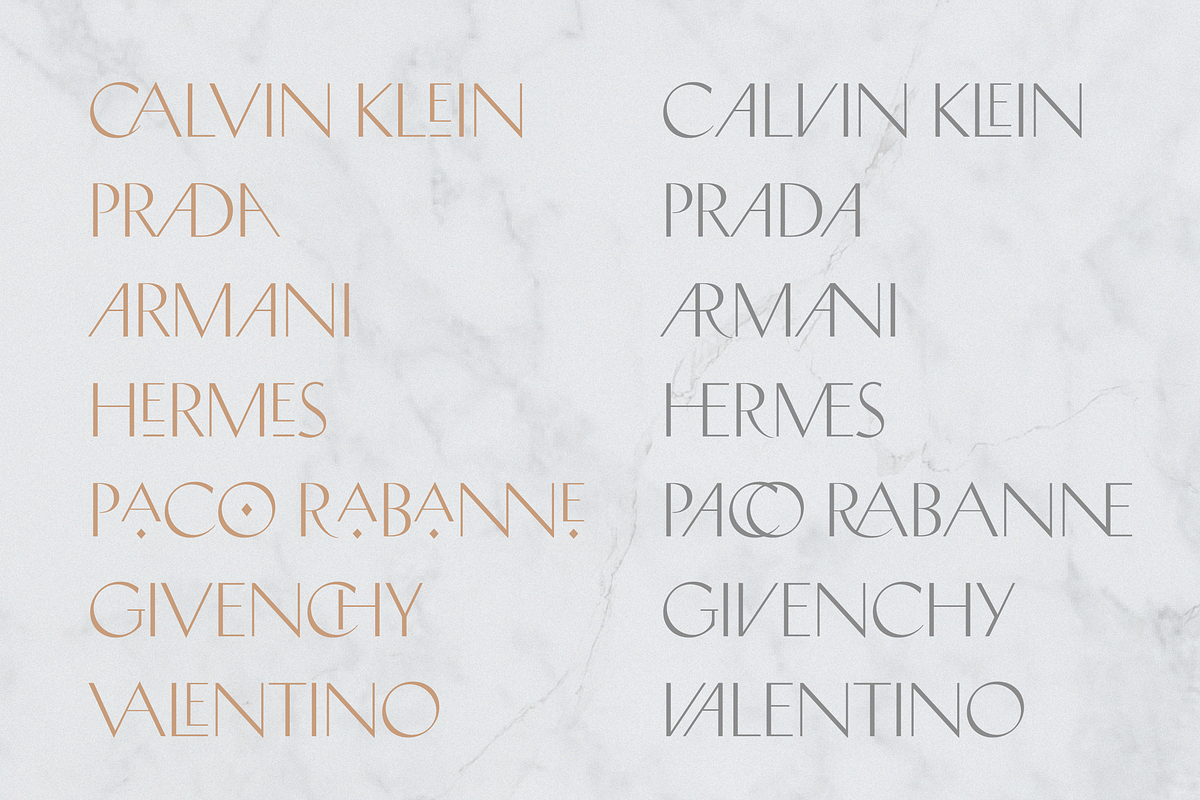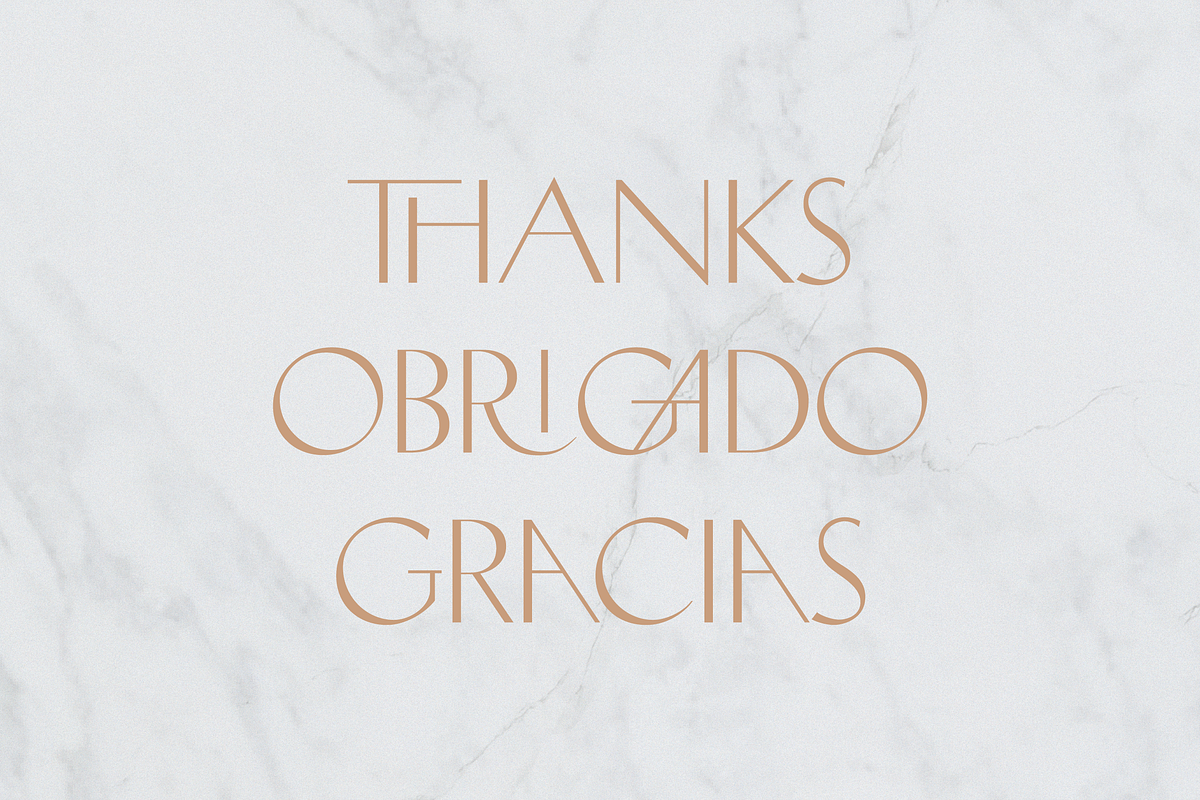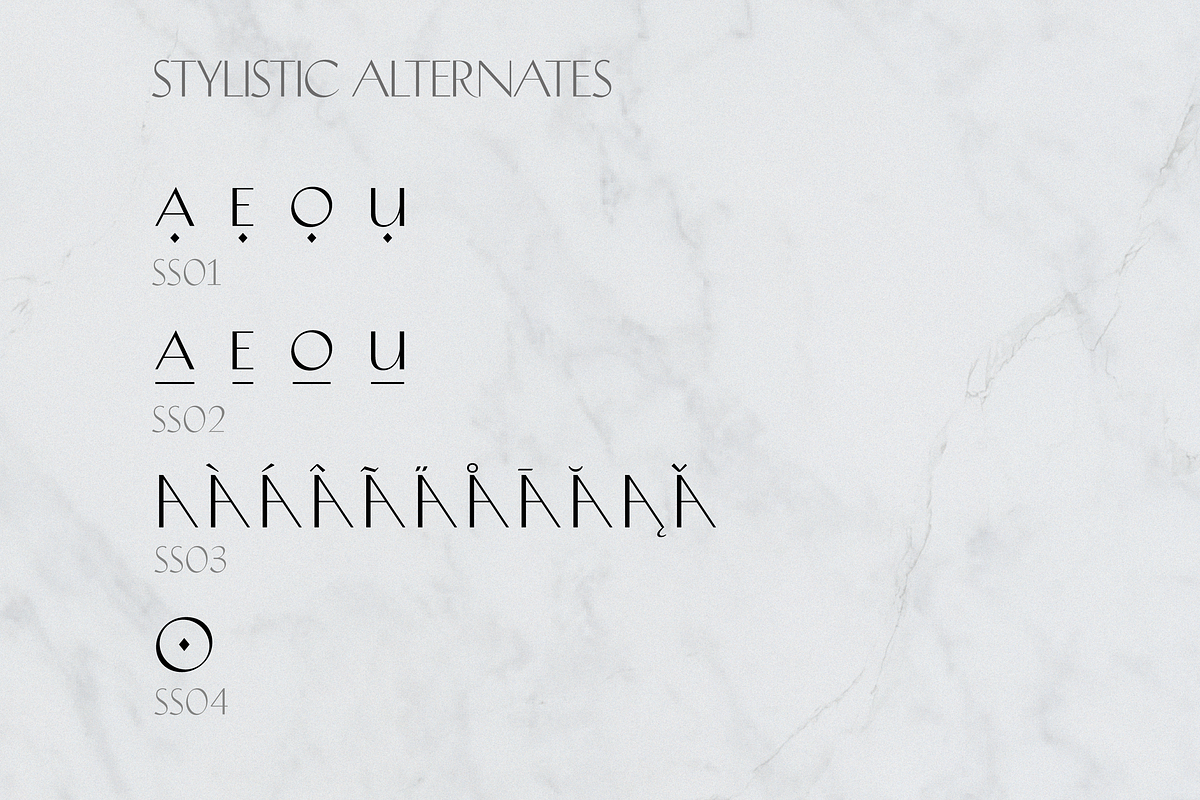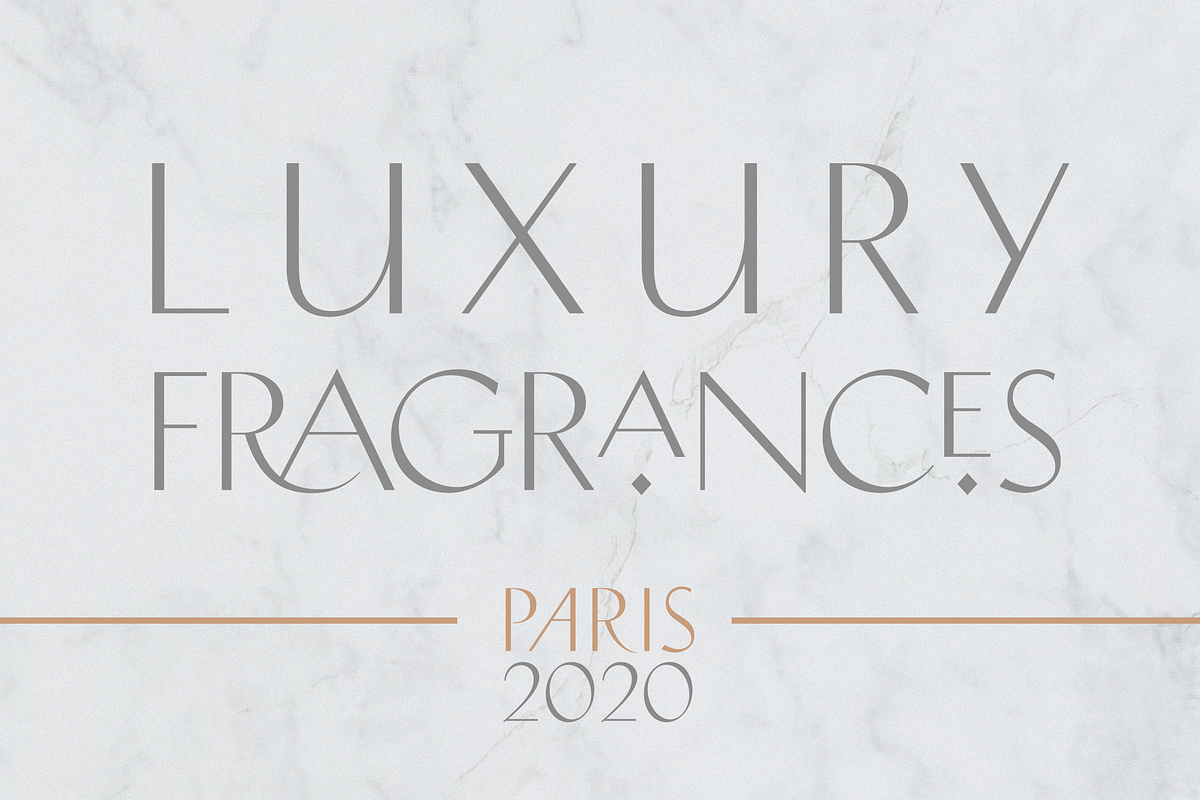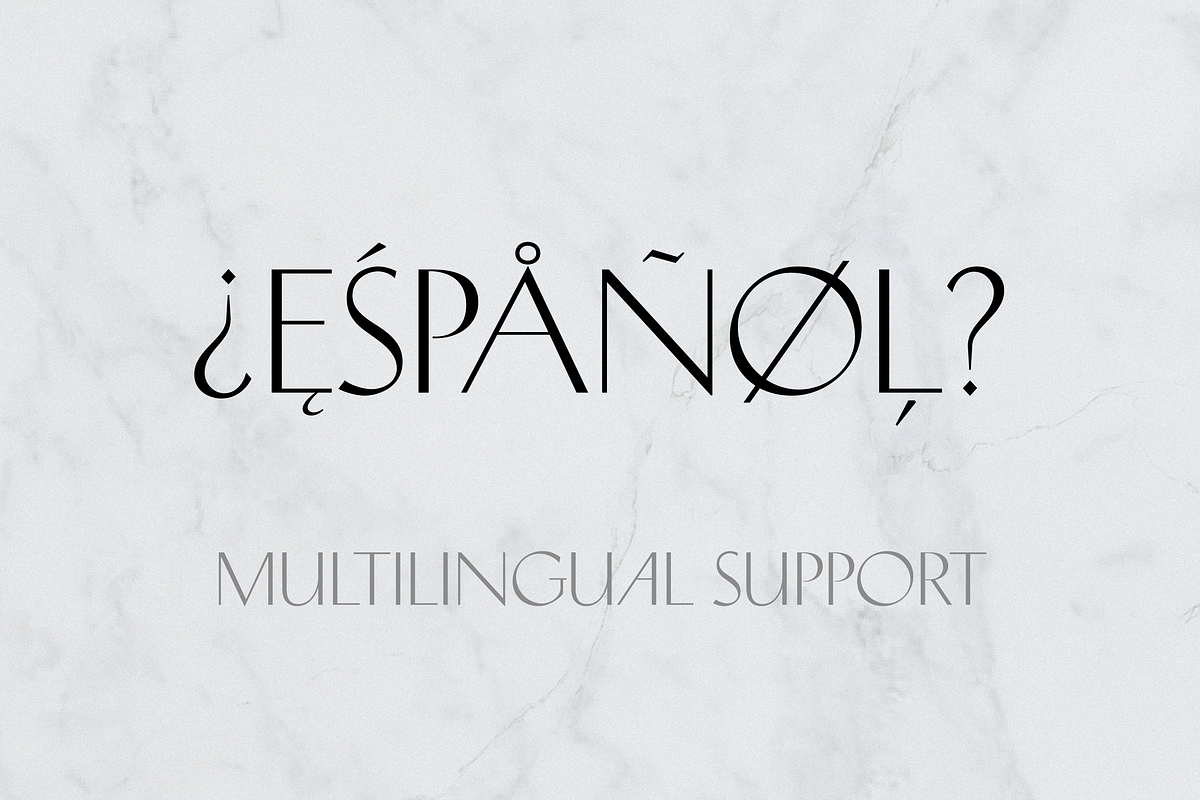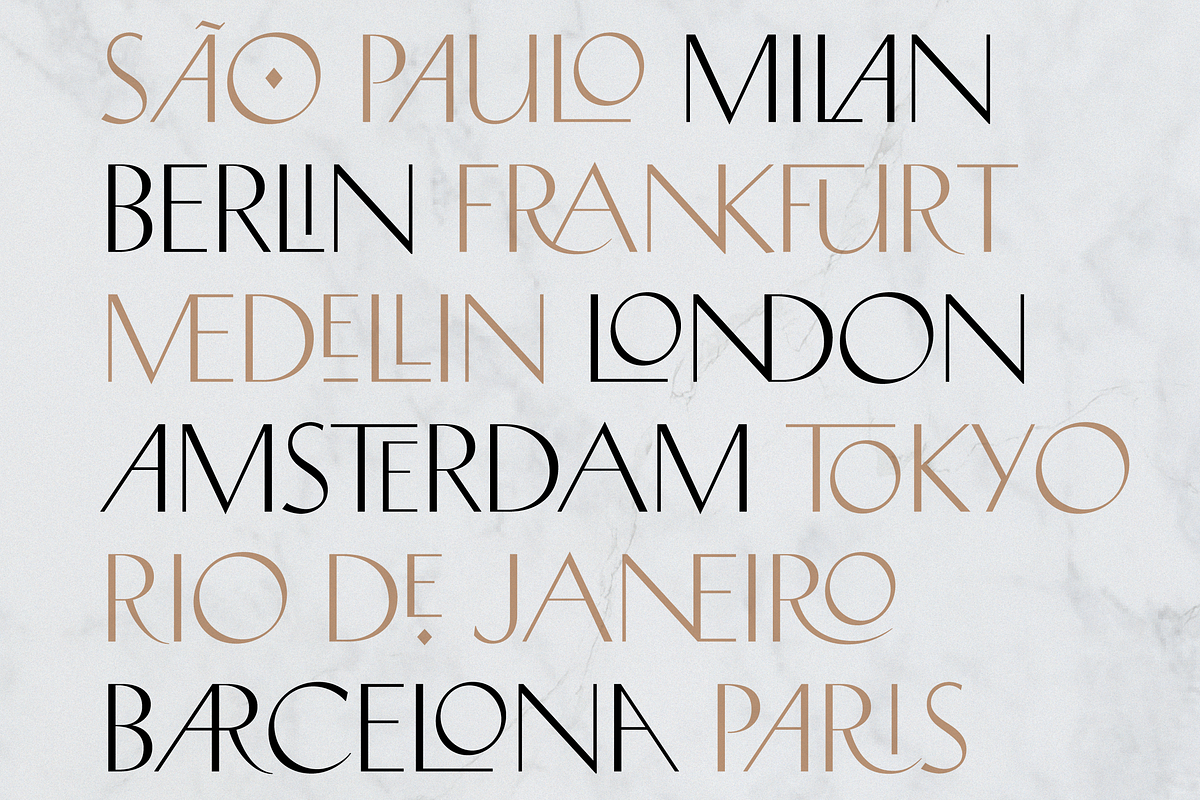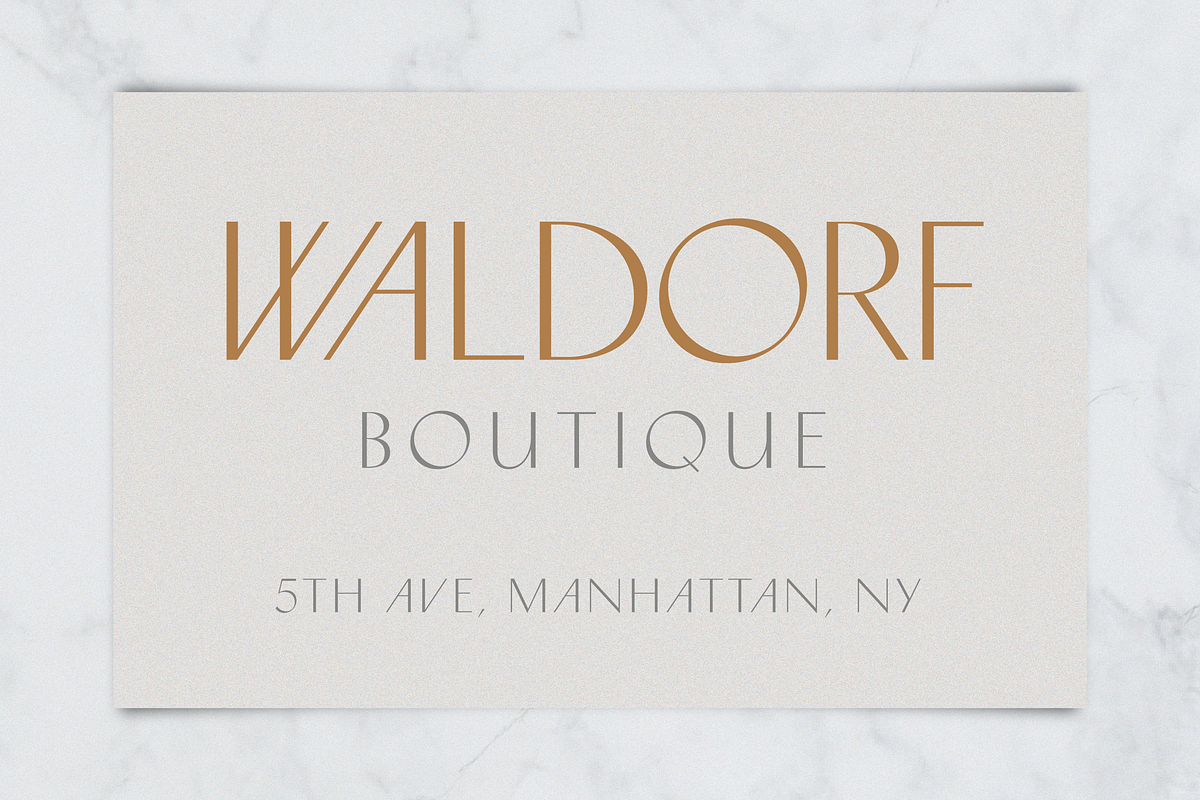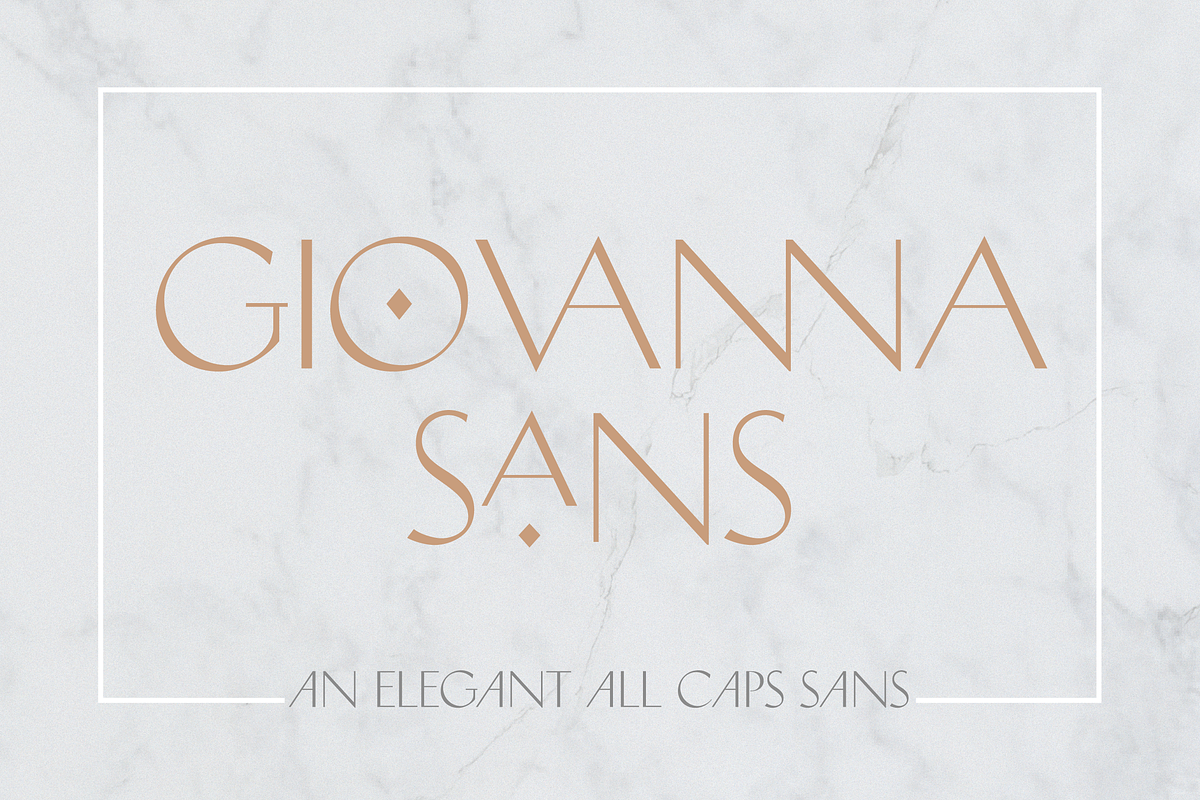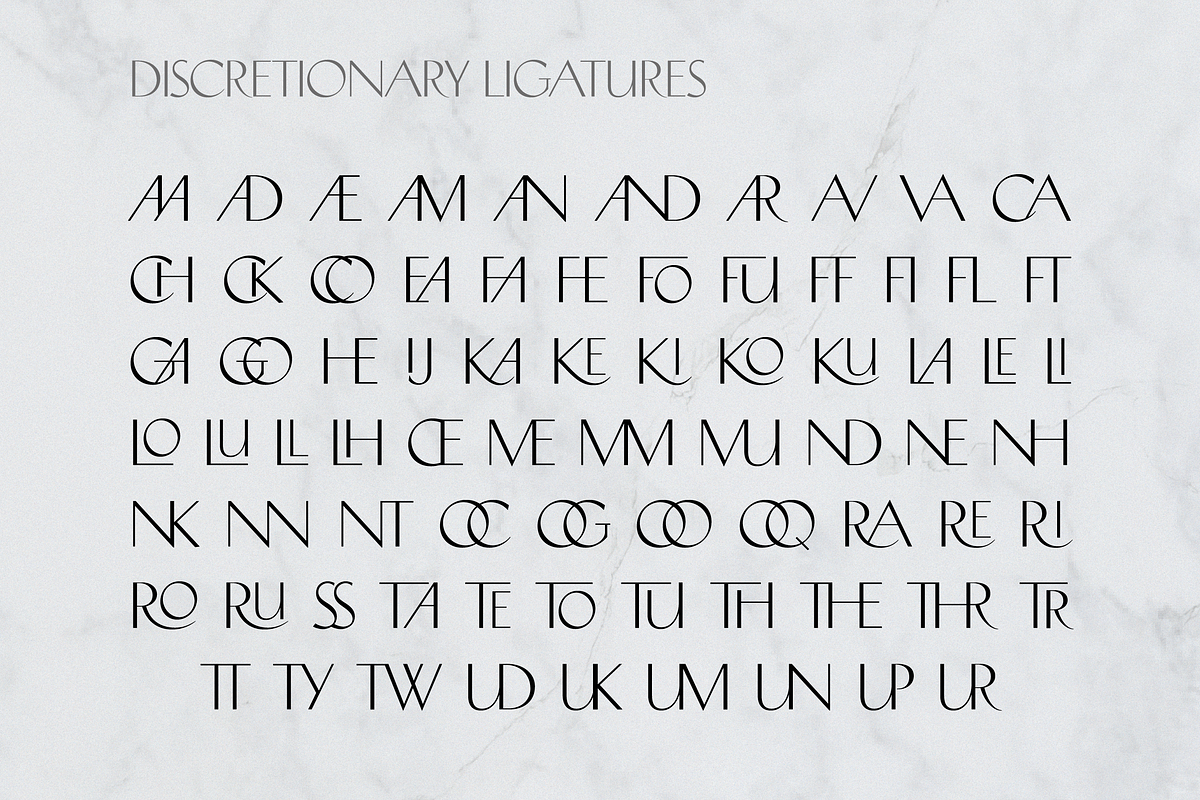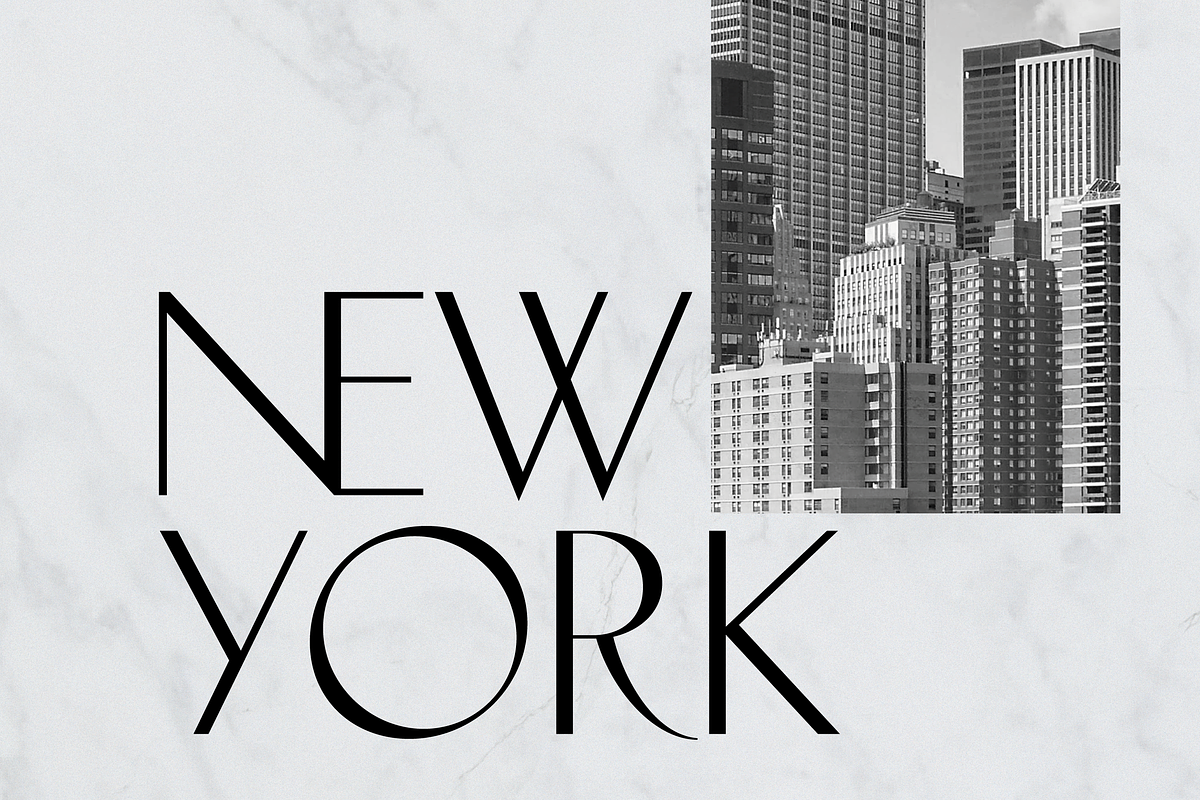
Giovanna Sans
Giovanna Sans is a minimalist and elegant sans serif typeface. This majestic typeface convey a feeling of refinement in traditional as well as contemporary designs. This typeface contains more than 60 ligatures that are perfect for creating unique titles and logos with a luxurious and stylish look. Designed for display typesetting at large sizes. It's best for headlines, titles, posters, magazines headings, logos, advertising, invitations, monograms, and wherever your creativity wants to be.
- All Caps
- Numbers, Punctuation & Symbol
- +60 Discretionary Ligatures
- Multi Language
- +400 Glyphs